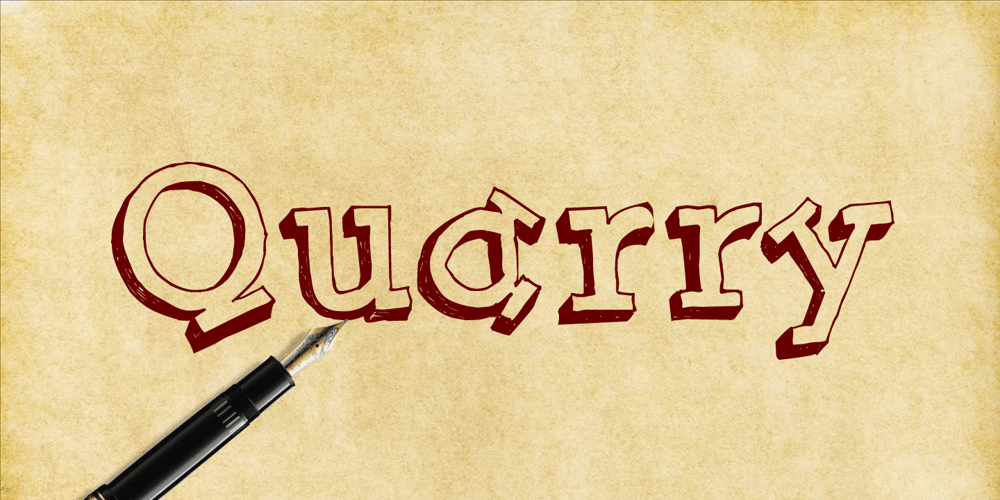
Quarry
Quarry font
Quarry Font Family was designed by Kent Swecker and published by A New Machine. Quarry contains 1 styles and family package options. Quarry is a beefy slab-serif display font. It is all hand drawn and will give your designs a unique handmade feel. Two complete sets of letter glyphs give a more natural random feel. Contextual alternates will switch out letters automatically in open type-friendly programs. Also included are a number of ligatures for an even greater feel of hand made-ness. Great for use on posters and in headline copy.